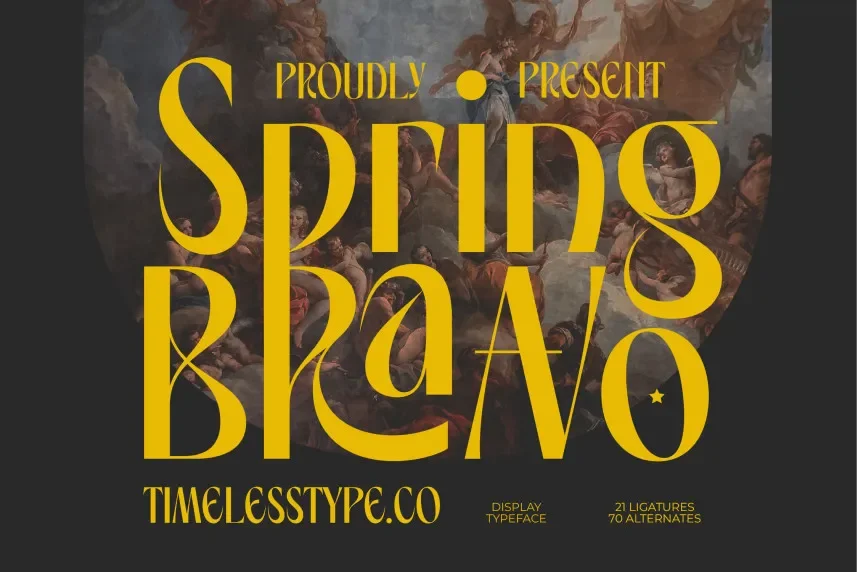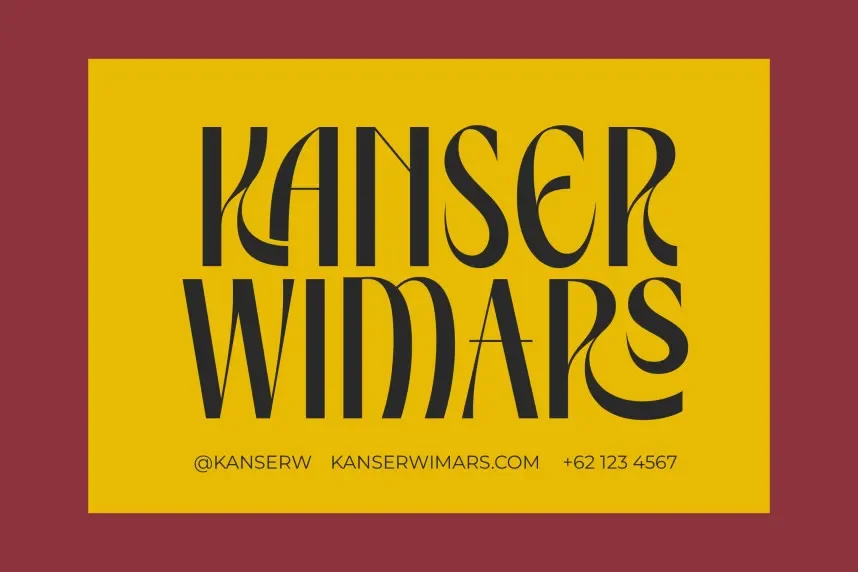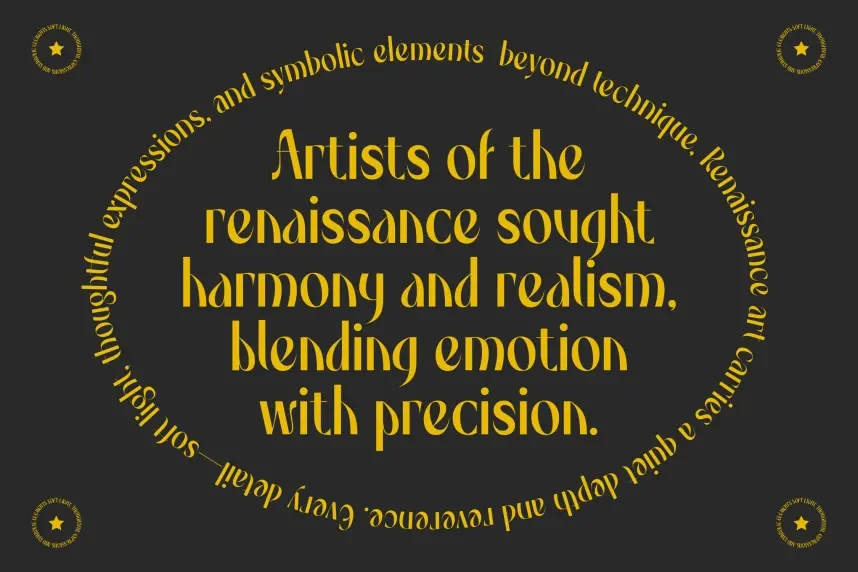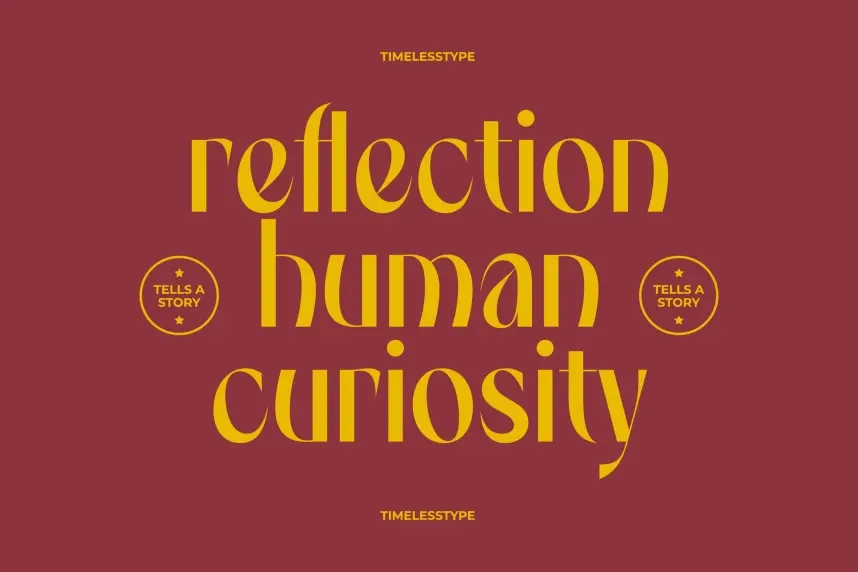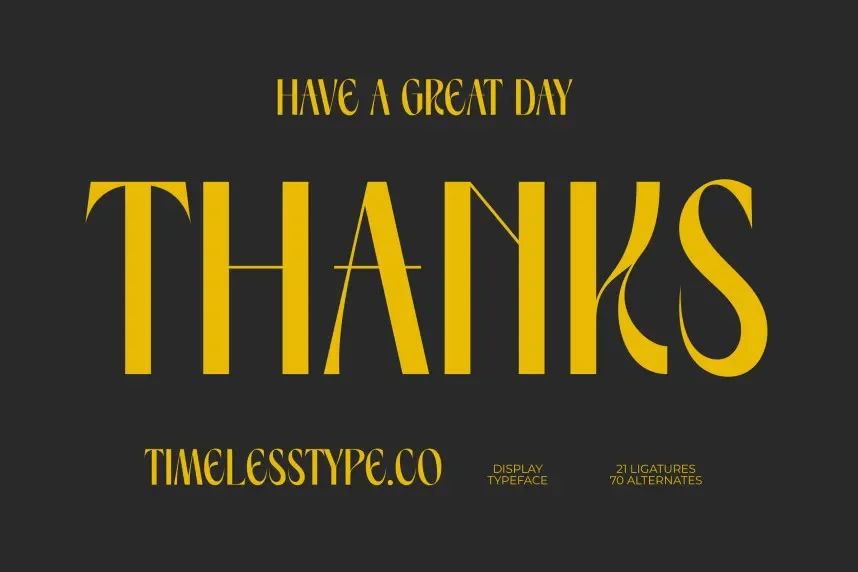
Spring Braavo Font is a modern display typeface designed for bold, striking designs. The font’s unique, angular letterforms with sharp edges make it perfect for impactful headlines, branding, and advertisements that need to grab attention quickly.